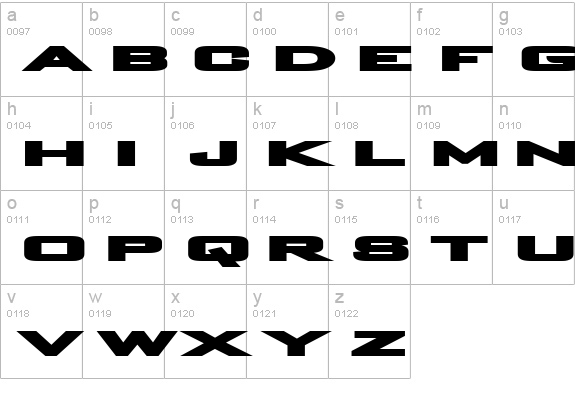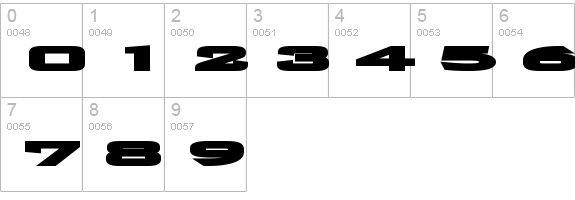
Plain O Matic Font Details
Introducing Plain O Matic font, a stunning typeface that effortlessly combines simplicity and elegance. This versatile font is perfect for a wide range of design projects, from branding and logo design to website headers and social media graphics. With its clean lines and modern appeal, Plain O Matic font adds a touch of sophistication to any project. Its sleek and legible characters make it easy to read, ensuring that your message is conveyed with clarity and style. Whether you're designing a sleek corporate brochure or a trendy fashion magazine, this font is sure to make a statement. But what makes Plain O Matic font even more appealing is the fact that it is completely free! Yes, you read that right - this font is freely available to download at FontsMarket.com. Now you can enjoy all the benefits of this remarkable font without having to spend a dime. FontsMarket.com is a trusted source for high-quality fonts, and they are proud to offer Plain O Matic font as part of their extensive collection. With just a few clicks, you can have this stunning font in your design arsenal, ready to elevate your projects to new heights. So why wait? Take advantage of this incredible opportunity to enhance your designs with the beauty and versatility of Plain O Matic font. Download it for free today at FontsMarket.com and prepare to be amazed by the endless possibilities that this font has to offer.